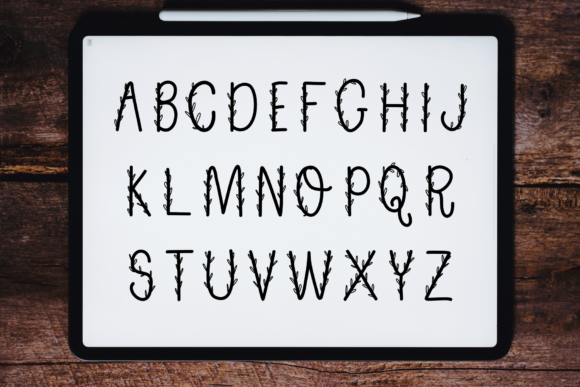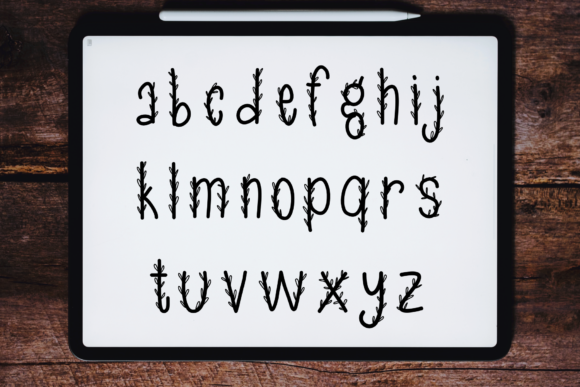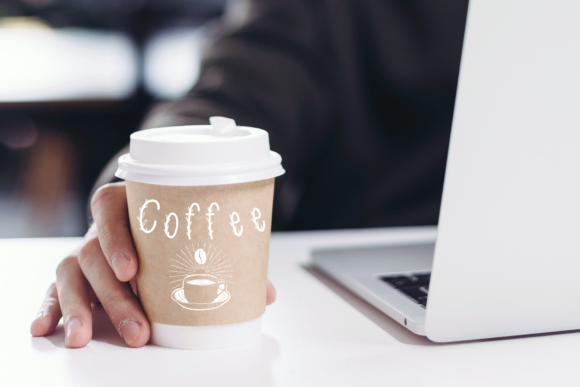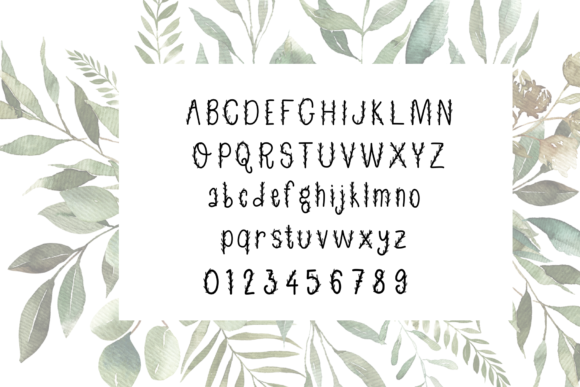
Introduction to Happy Leaves Font
Happy Leaves is a simple and neat lettered handwritten font, featuring tiny leaves.
Add this font to your favorite creative ideas and notice how it makes them come alive .